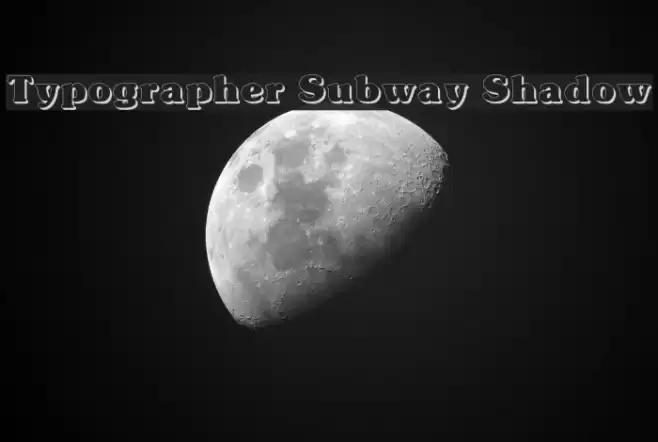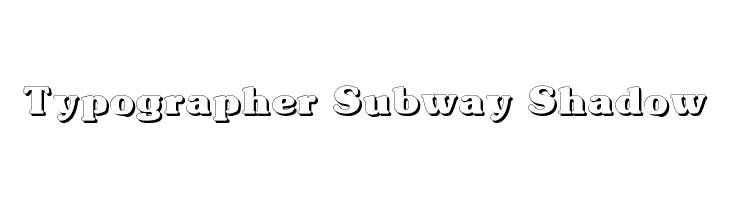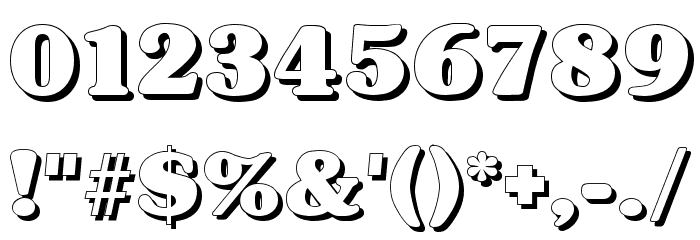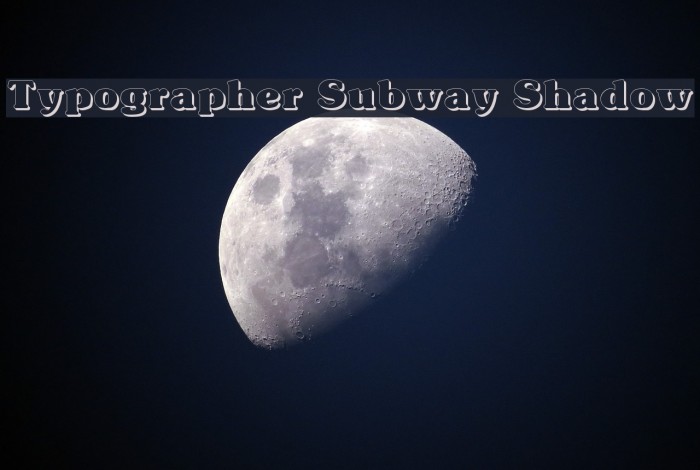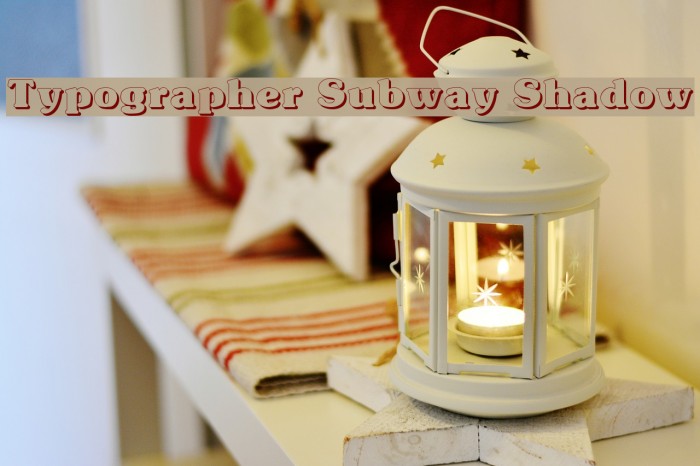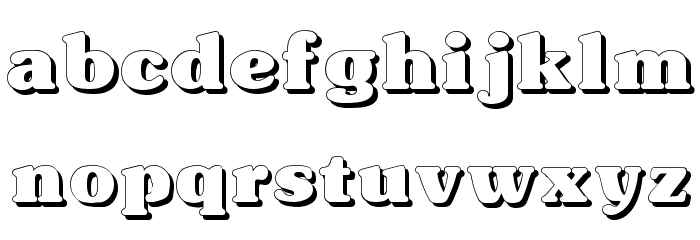
Typographer Subway Shadow Font
Typographer Subway Shadow Description
This font features a bold, shadowed style that gives a three-dimensional effect to each character. The uppercase and lowercase letters are designed with a strong presence, making them stand out with a distinct shadow that adds depth. The numerals and special characters follow the same design principle, ensuring consistency across all glyphs. The font's boldness and shadow effect make it ideal for attention-grabbing designs. Its clean lines and structured form lend it a modern yet slightly retro feel, reminiscent of vintage signage or classic advertising.
A bold, shadowed font with a three-dimensional effect, ideal for impactful designs from Uncategorized fonts.
- Proposed Projects: Perfect for posters, headlines, branding, and any project needing a bold, eye-catching typeface.
- Overall Style: Modern, Vintage